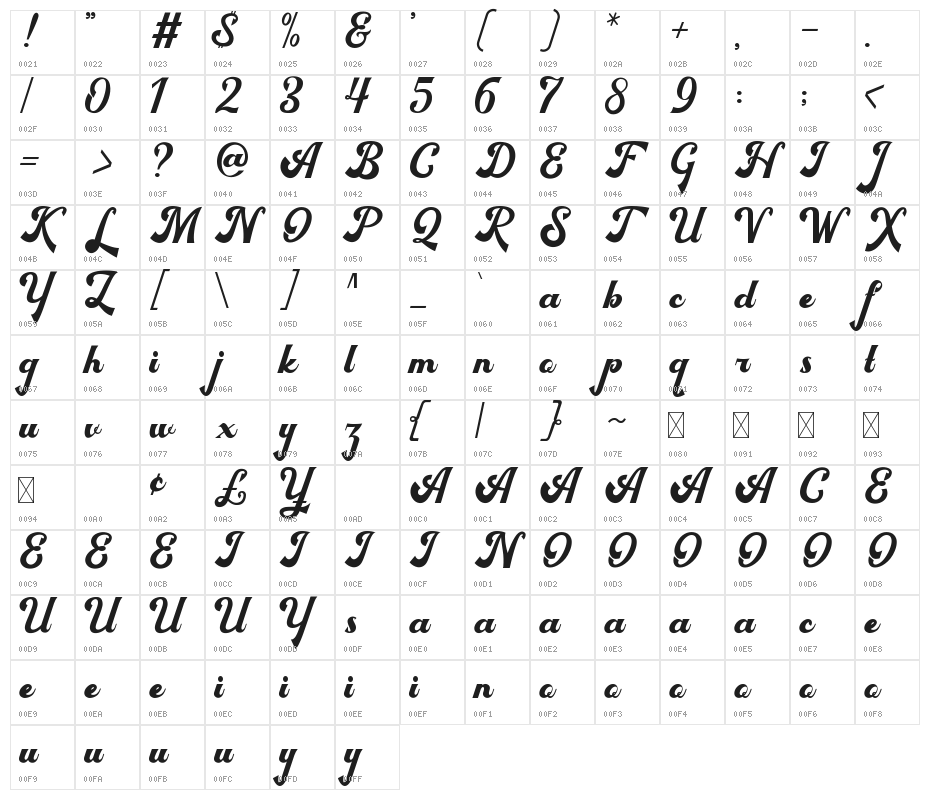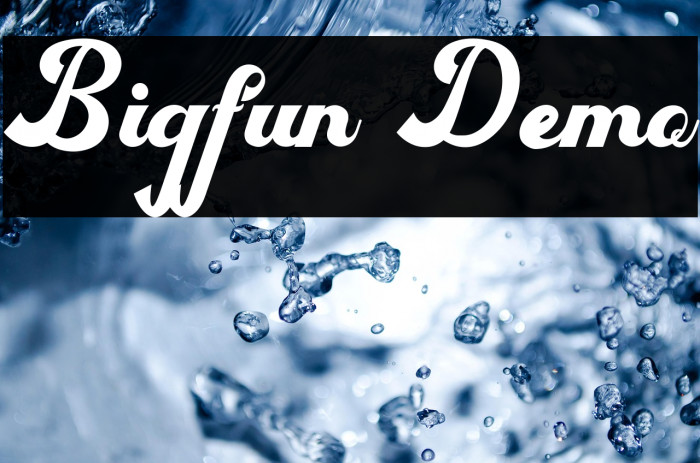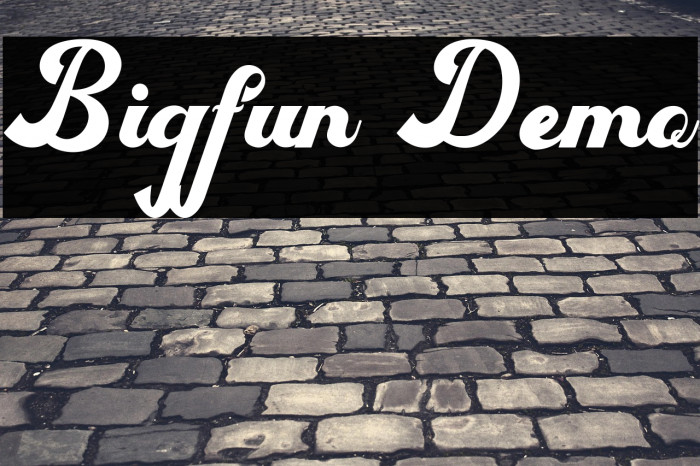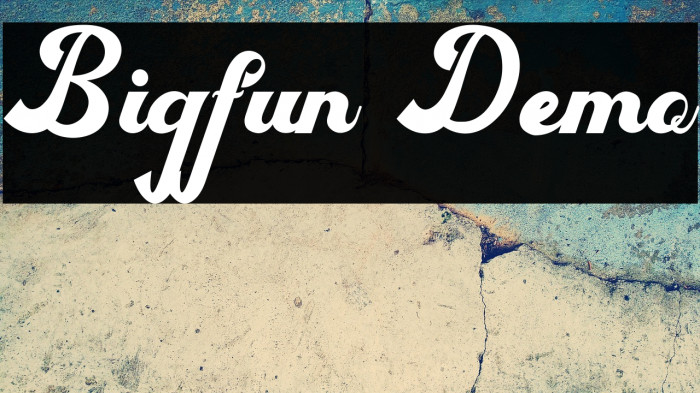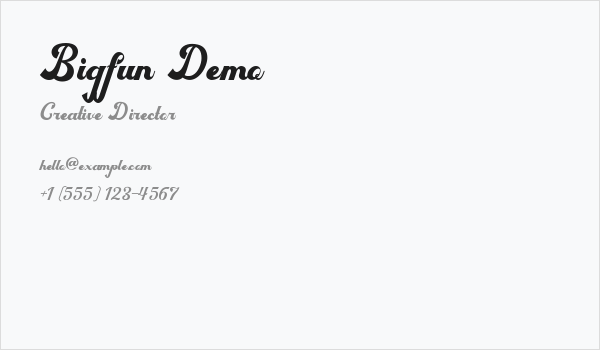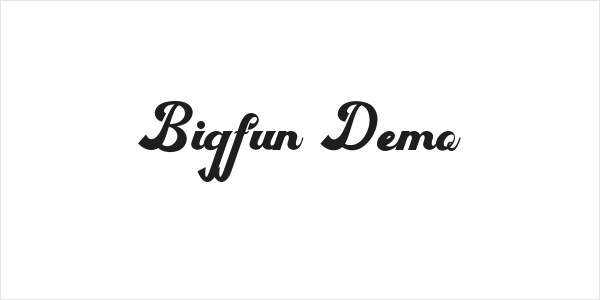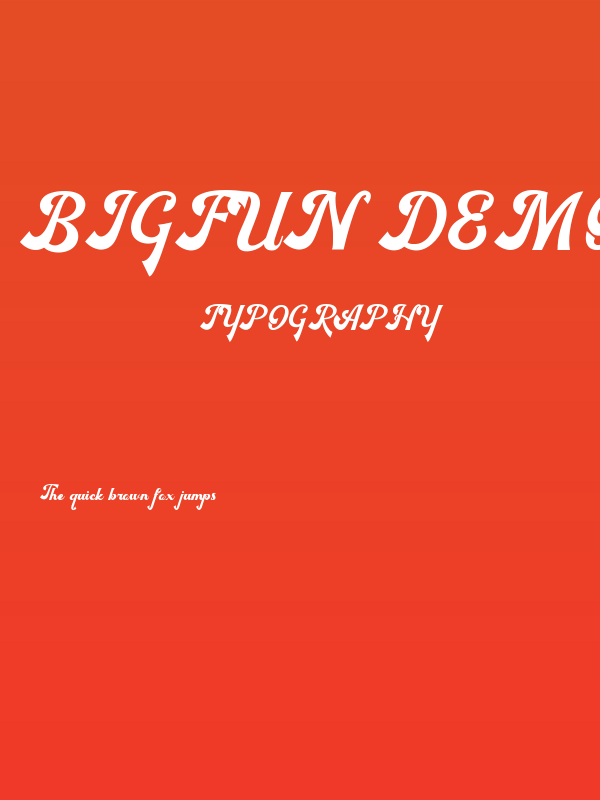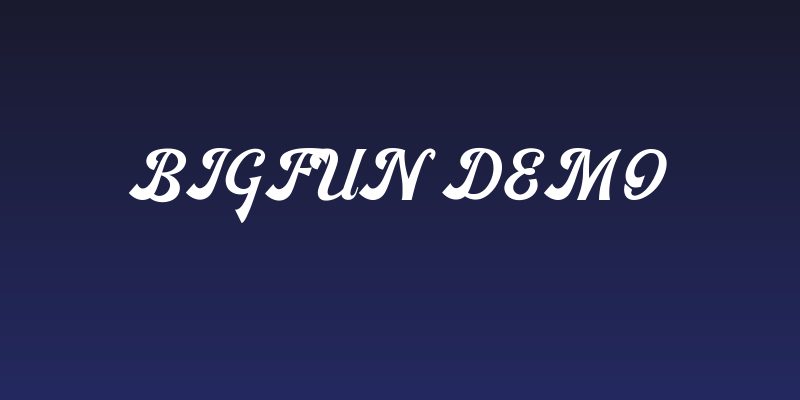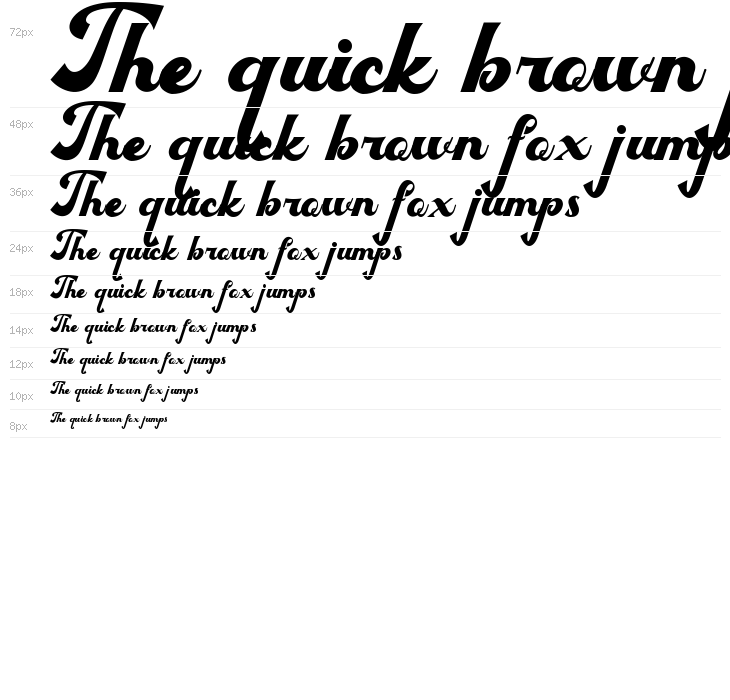
Bigfun Demo Font
Bigfun Demo Description
This font features a bold and dynamic script style with a strong presence. The characters are designed with a flowing, cursive aesthetic, giving it an elegant and energetic feel. The uppercase letters are slightly more formal, while the lowercase letters maintain a playful and casual vibe. The numbers and special characters are consistent with the overall style, ensuring a cohesive look across all text. The strokes are thick and confident, providing high contrast and making the font stand out. This font is ideal for projects that require a sense of movement and flair.